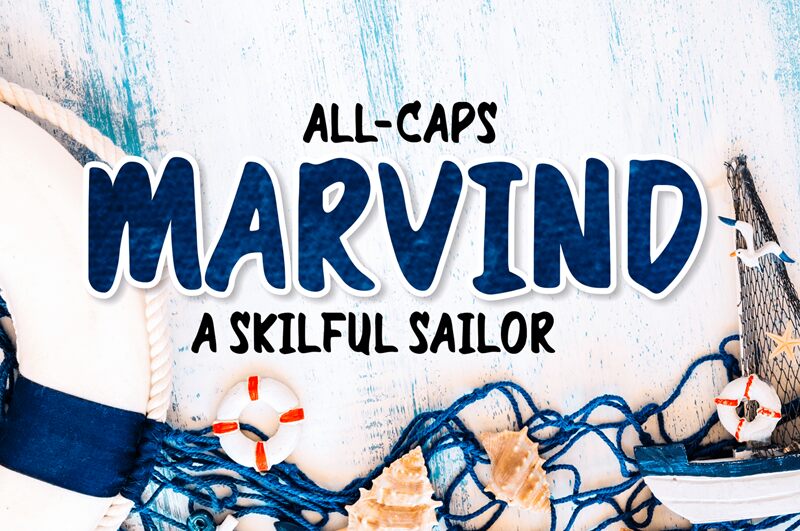
Marvind is a bold brush font designed by Ali Hamidi. Its thick strokes and edgy design make it perfect for projects that need to convey strength and boldness. Whether it's a poster for a rock concert, or an edgy fashion magazine cover, Marvind is the ideal choice. Its rough edges give it character, making it perfect for designs that require a touch of personality. The semi-bold typeface provides versatility, allowing designers to use Marvind in both large and small sizes without sacrificing readability. Give your designs an edge with Marvind, the bold brush font that commands attention.
Marvind